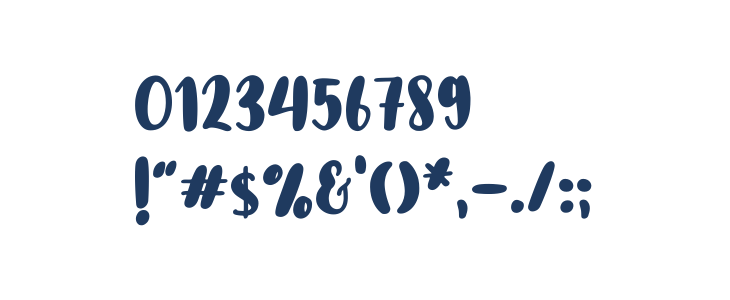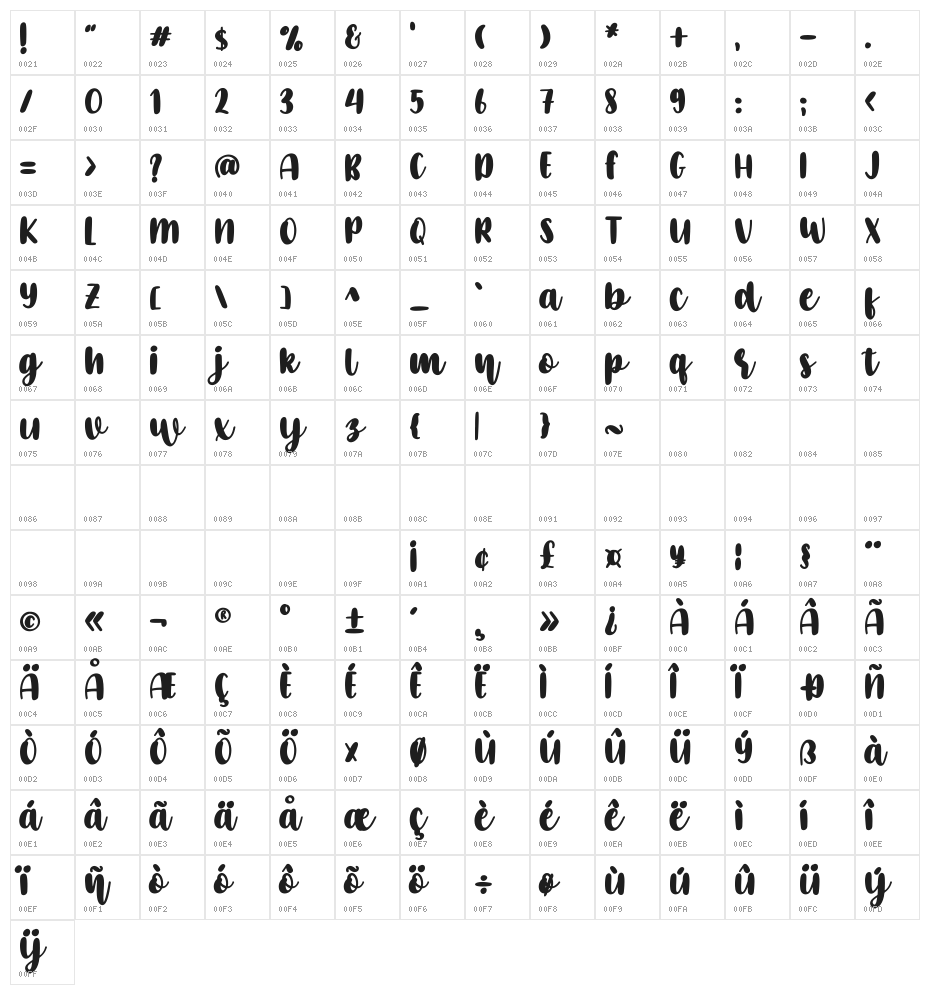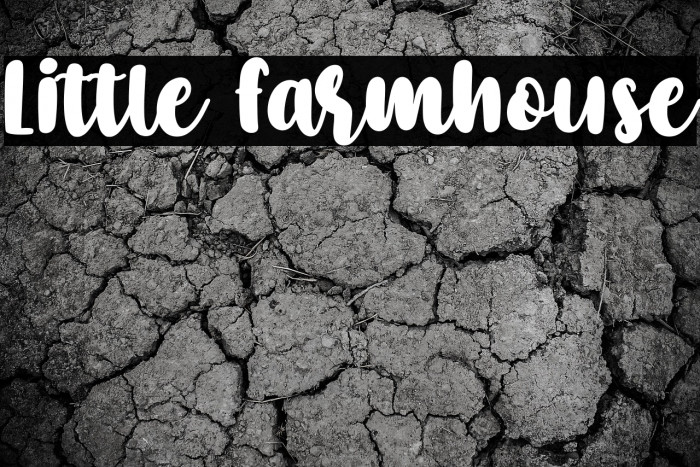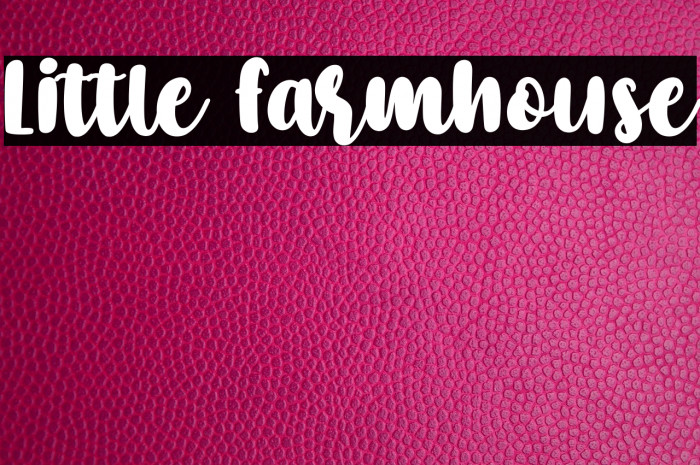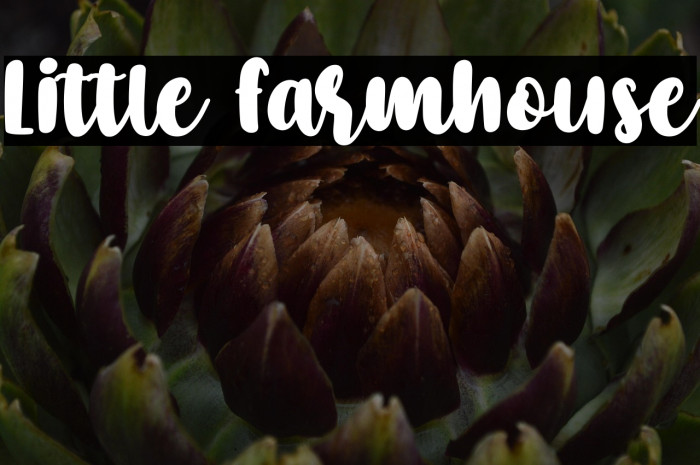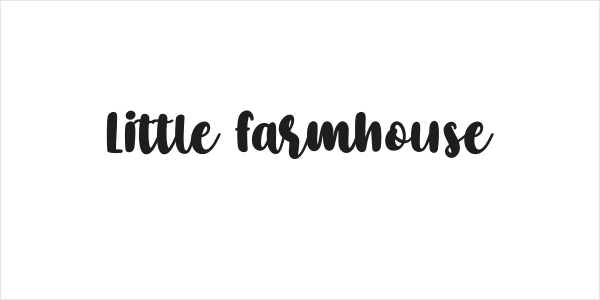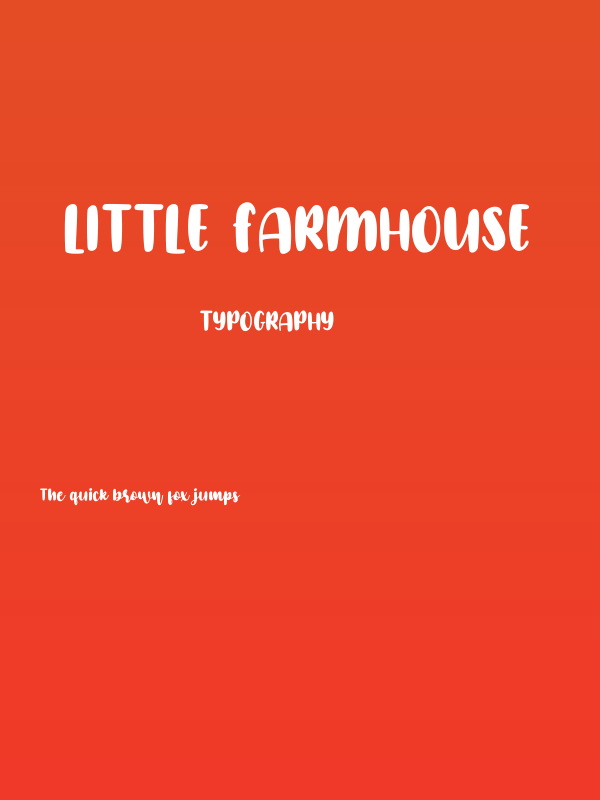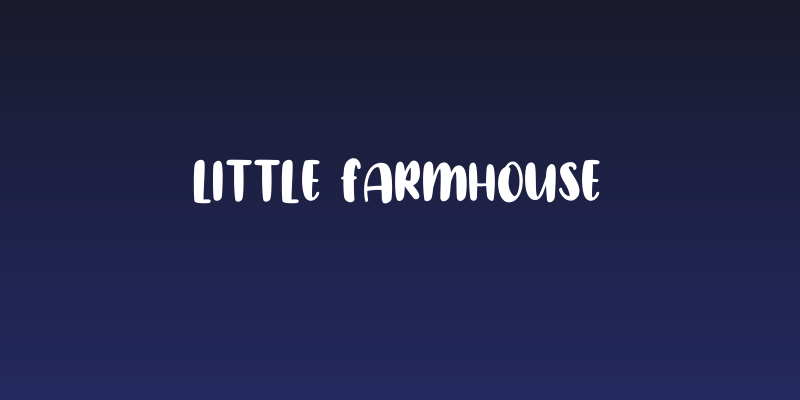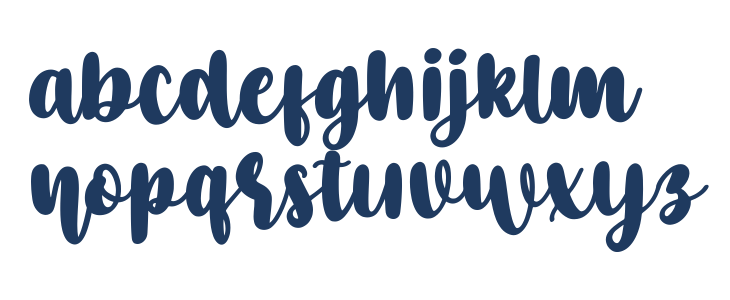
Little Farmhouse Font
Little Farmhouse Description
This font features a bold, handwritten style with a playful and organic feel. The characters are rounded and have a consistent thickness, giving them a smooth and flowing appearance. The uppercase and lowercase letters are well-balanced, with a slight slant that adds a dynamic touch. The numbers and special characters maintain the same whimsical style, making the font versatile for various design needs. Its bold strokes and lively curves make it stand out, while the uniformity in character height and width ensures readability. This font is perfect for projects that require a personal and friendly touch.
Use CaseLogos, Headlines, Invitations
Proposed ProjectsIdeal for greeting cards, invitations, logos, and social media graphics.